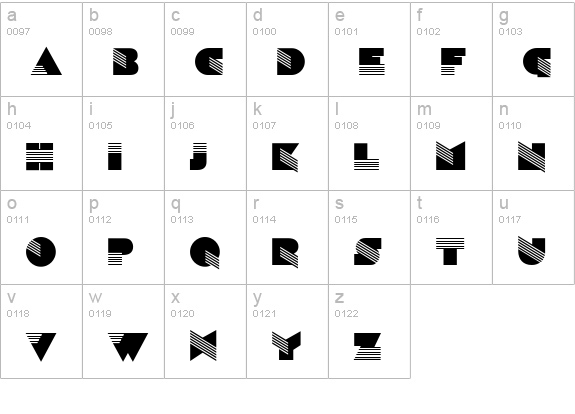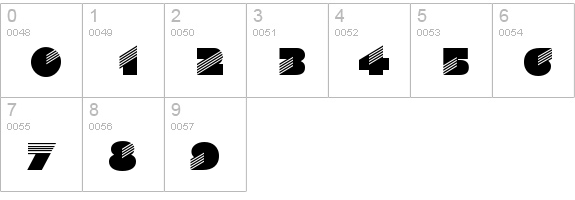
CgSinaloa Font Details
CgSinaloa is a modern and sleek font that brings a touch of elegance to any design project. Its clean lines and stylish curves make it perfect for a wide range of applications, from branding to editorial design. This versatile font is both eye-catching and easy to read, making it ideal for both print and digital projects. And the best part? CgSinaloa is completely free to download at FontsMarket.com. Whether you're a professional designer looking for a new go-to font or just starting out and experimenting with typography, CgSinaloa is a fantastic choice that won't break the bank. Download it today and elevate your design projects with this stunning typeface.